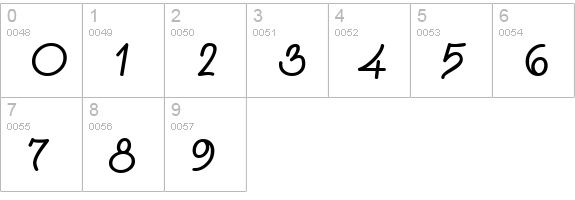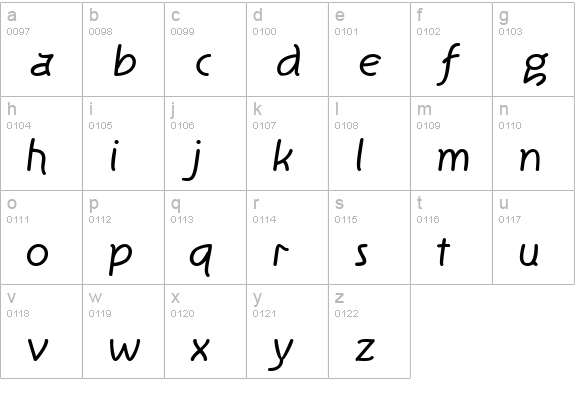
KnewFont Bold Font Details
KnewFont Bold is a strong, high-contrast variant in the KnewFont typeface family \xE2\x80\x94 well suited to headlines, attention-grabbing titles, and strong calls-to-action.
Introducing the striking and powerful KnewFont Bold font, a bold and dynamic typeface that will make your designs stand out from the crowd. With its strong and confident letterforms, this font exudes a sense of modernity and sophistication. KnewFont Bold is perfect for headlines, titles, logos, and any design project that requires a bold and impactful look. Its distinct and commanding presence on the page will captivate your audience and leave a lasting impression. Not only does KnewFont Bold deliver in terms of style, but it also offers versatility and ease of use. The carefully crafted letterforms ensure legibility at any size, making it suitable for both print and digital applications. Whether you're working on a poster, a website, or a branding project, this font will elevate your design to new heights. And the best part? KnewFont Bold is freely available to download at FontsMarket.com. Yes, you read that right - this incredible font can be yours without spending a dime. FontsMarket.com is a trusted source for high-quality fonts, and they're offering this gem for free. Don't miss out on the opportunity to enhance your designs with this exceptional typeface. So go ahead, unleash your creativity and download KnewFont Bold today. Elevate your designs with its bold and impactful presence, and let your message be heard loud and clear. The possibilities are endless with this remarkable font at your disposal.